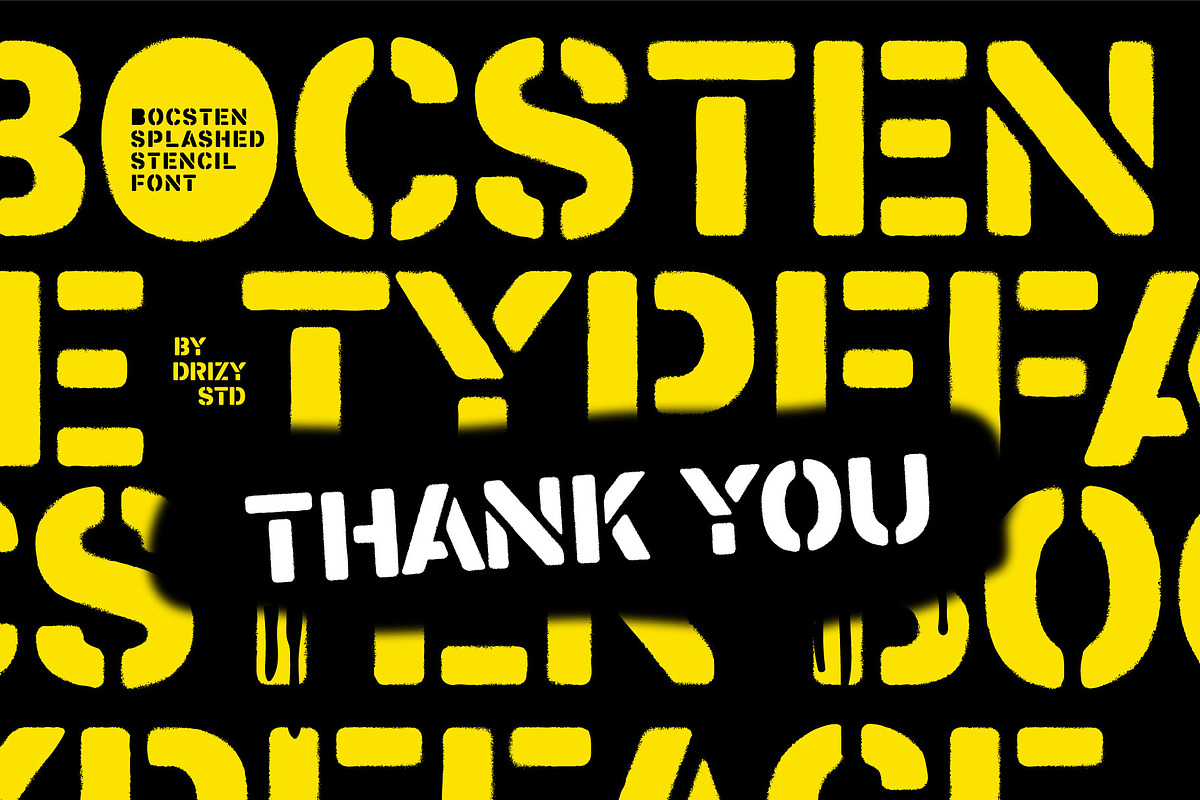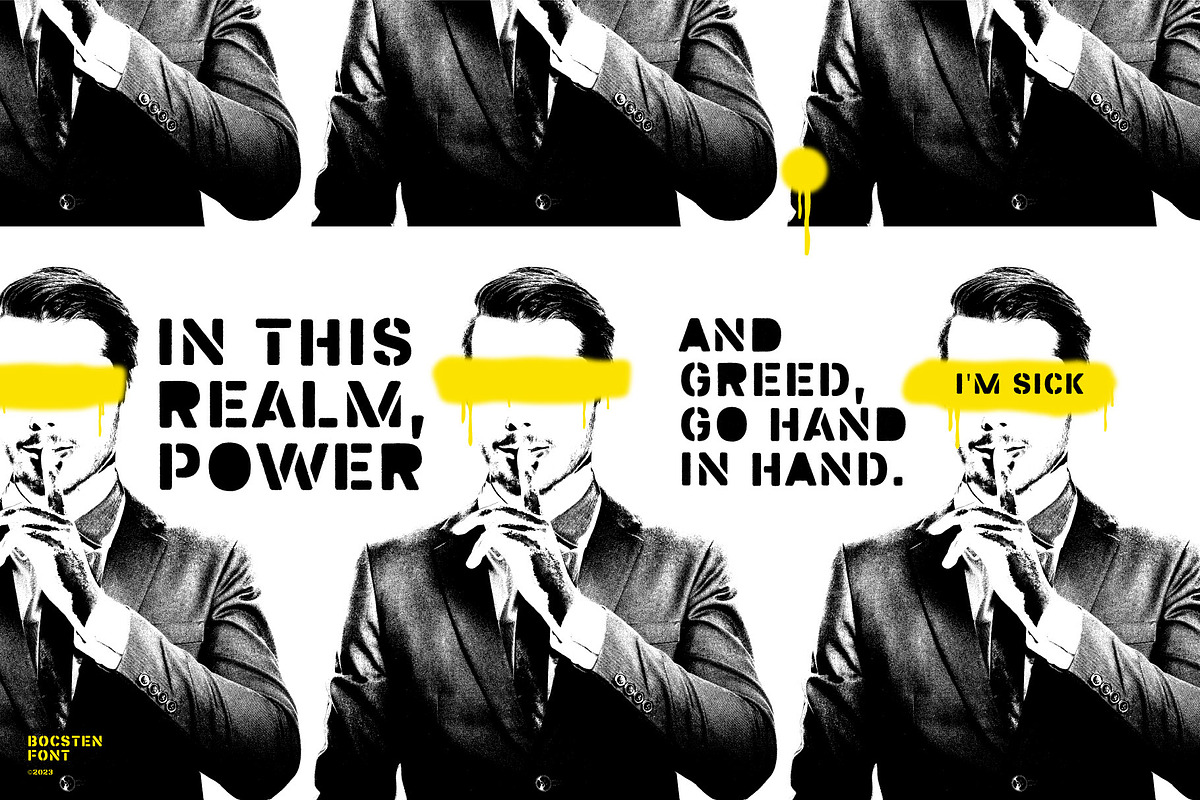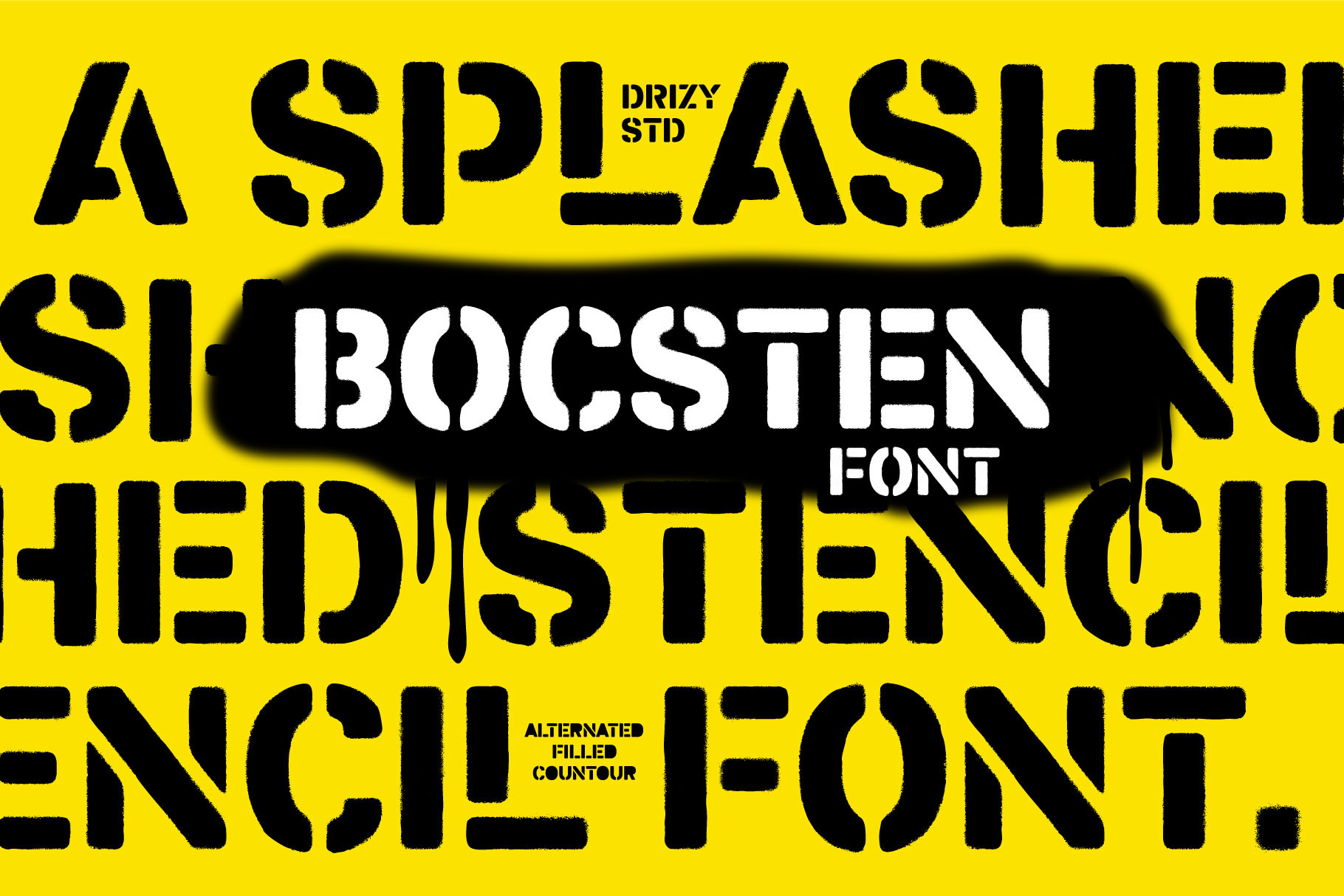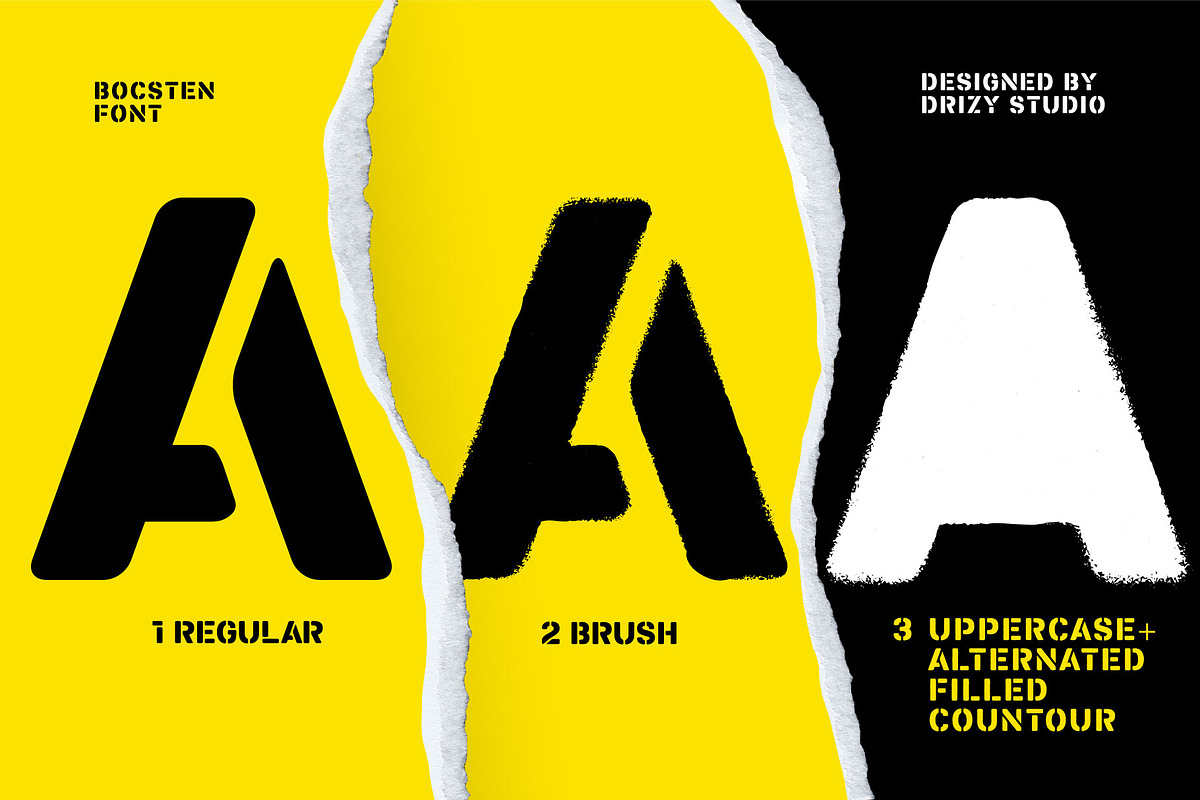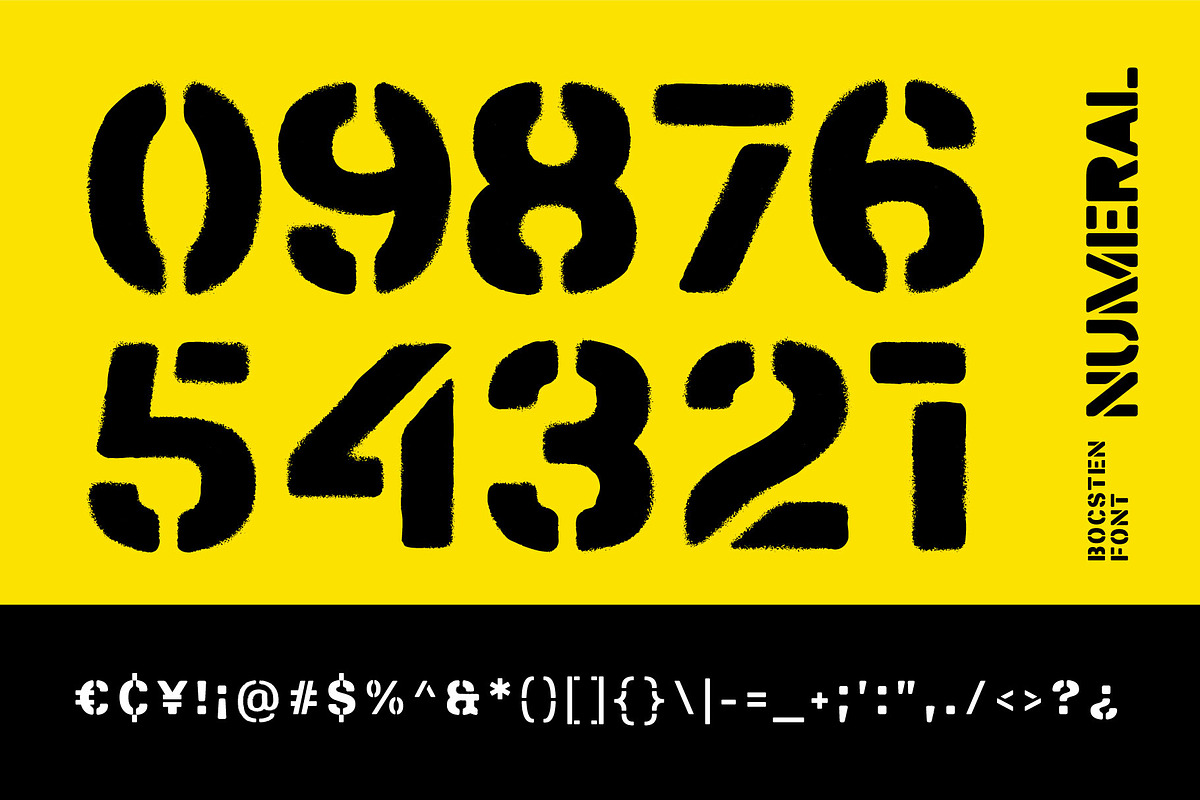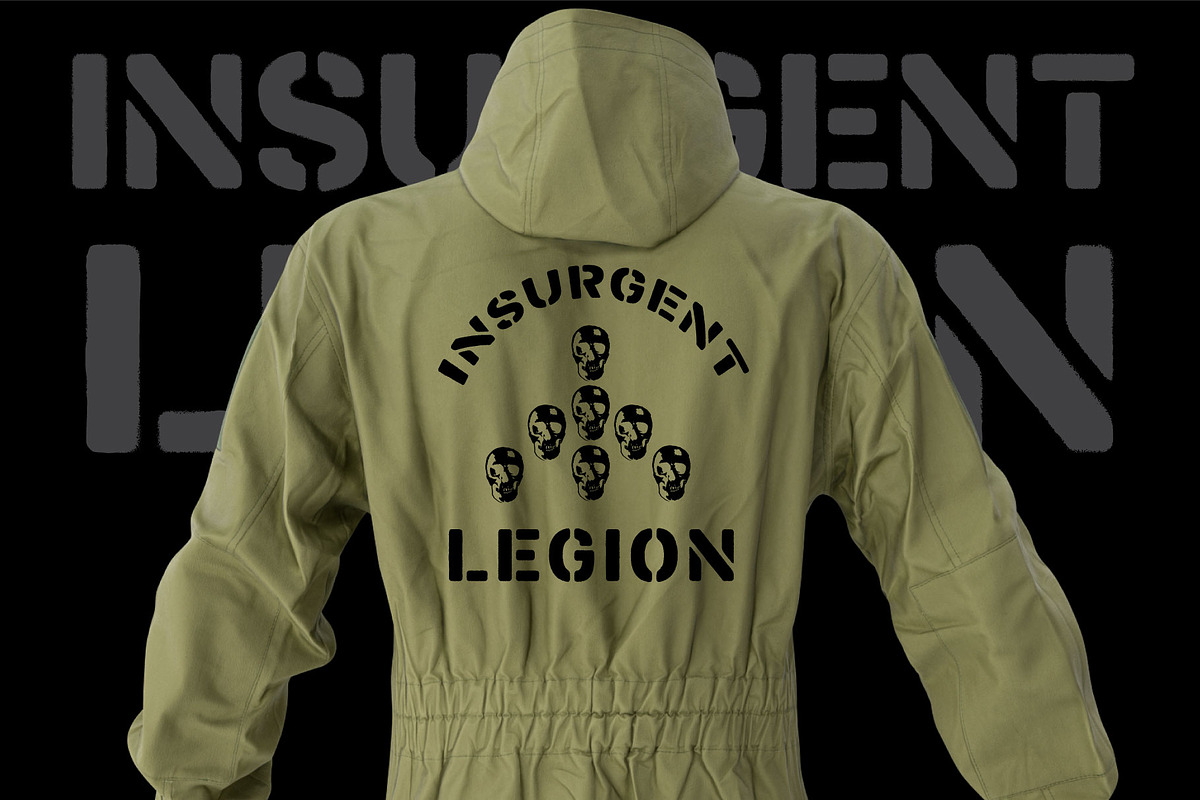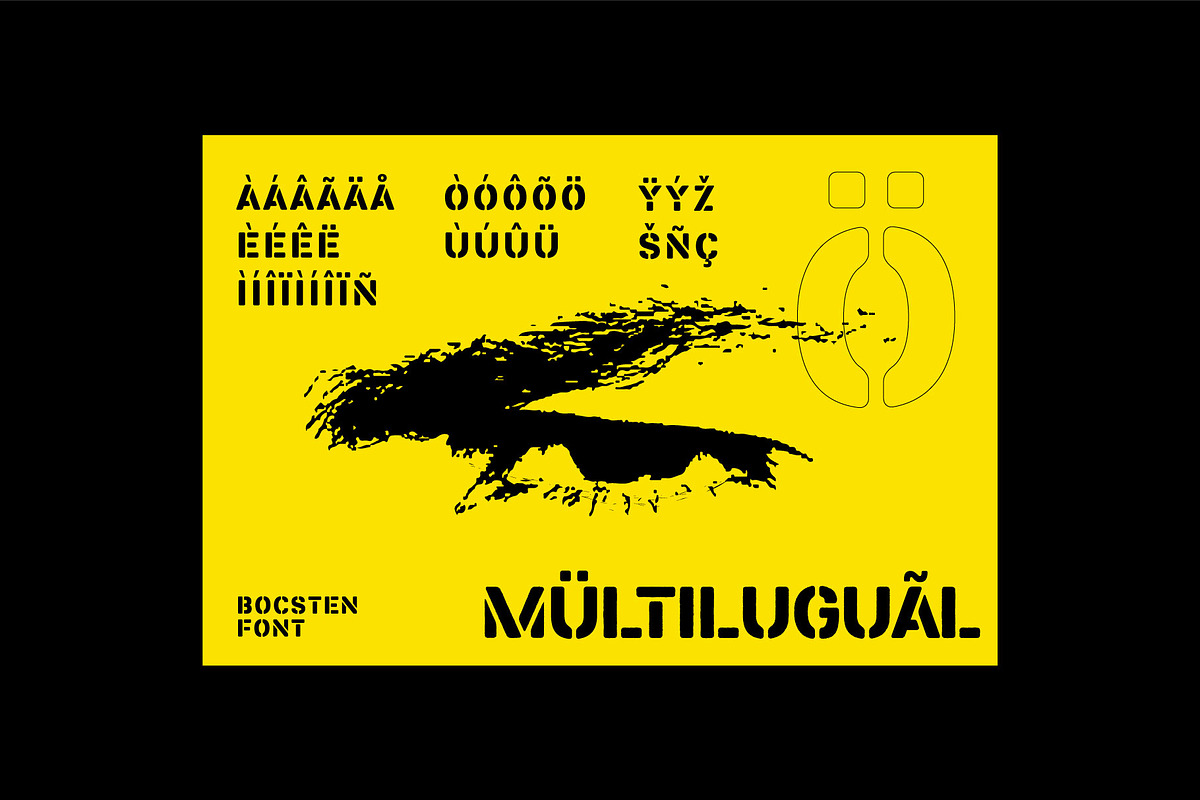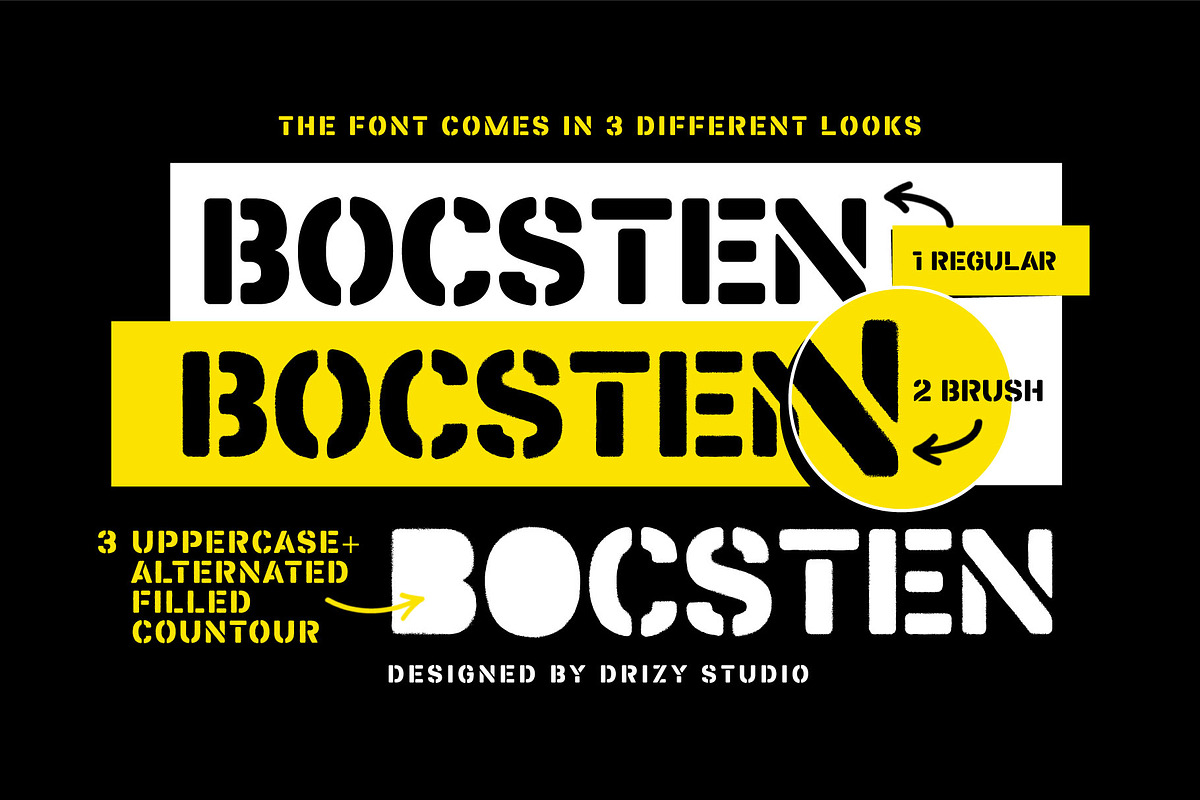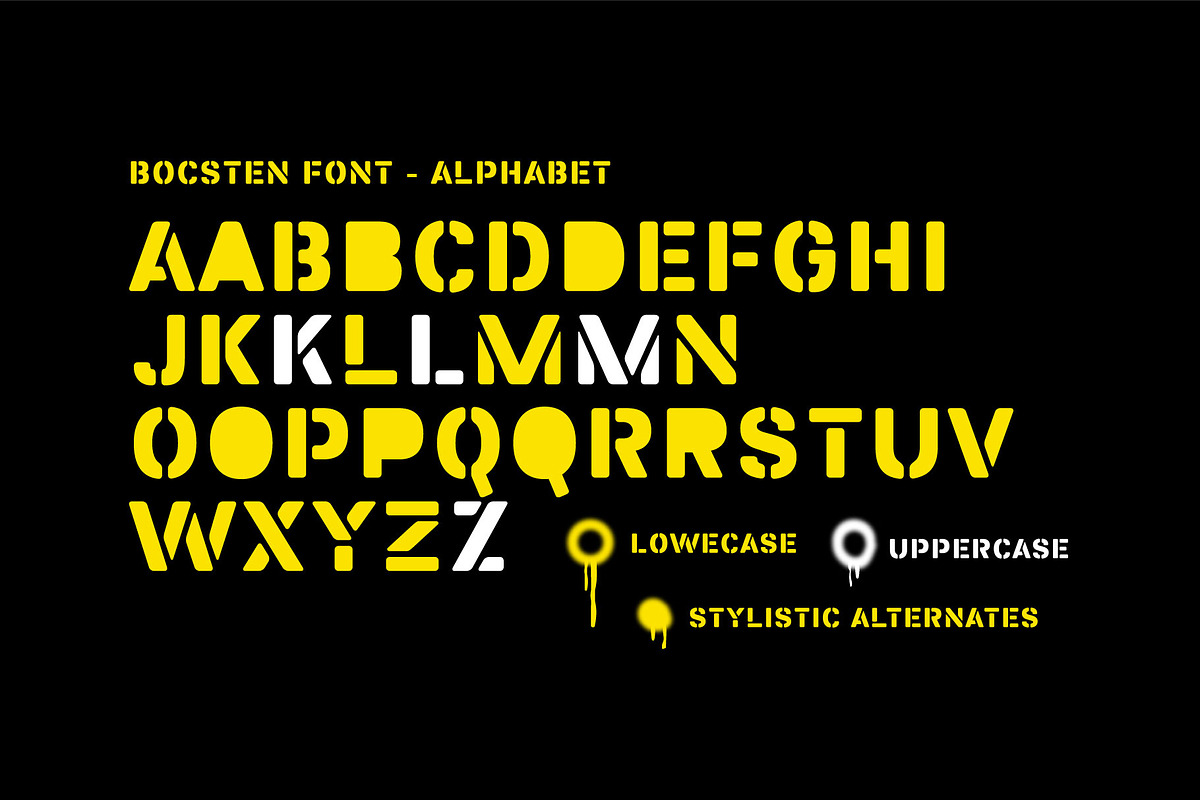
Bocsten – Splashed Stencil Font
Bocsten is an electrifying and avant-garde splashed stencil font that pushes the boundaries of typographic expression. This typeface marries the rebellious energy of street art with a contemporary design sensibility, resulting in a visually stunning and versatile font.
Bocsten features:
- Character Set
- Variable: Regular & Brush
- Punctuation & Numbers